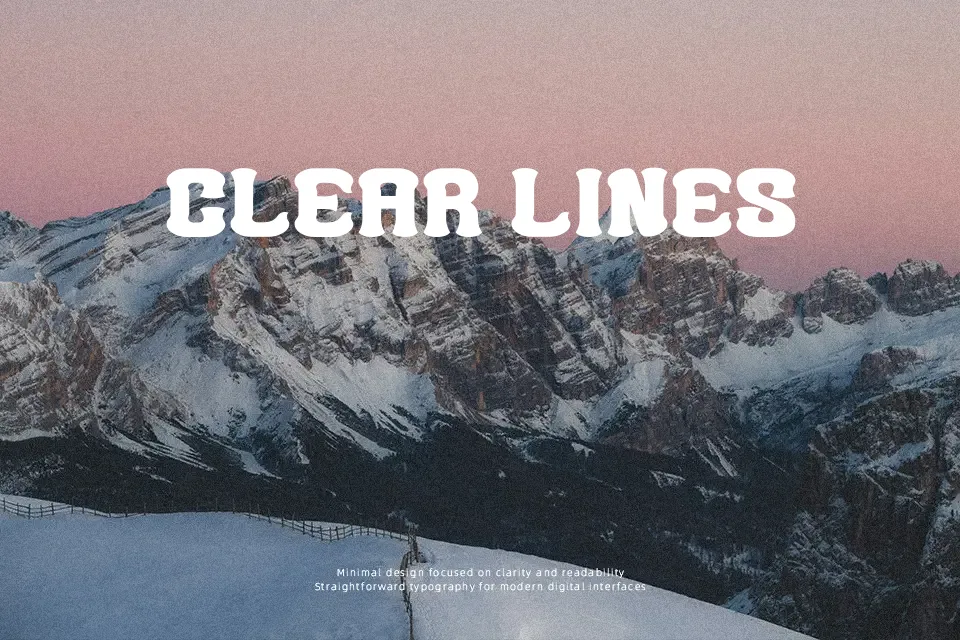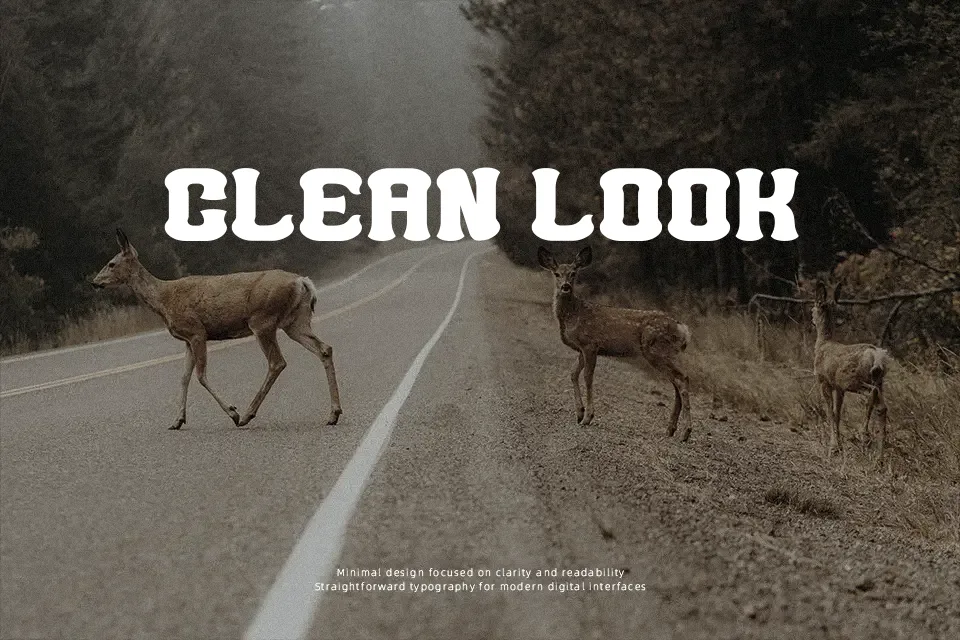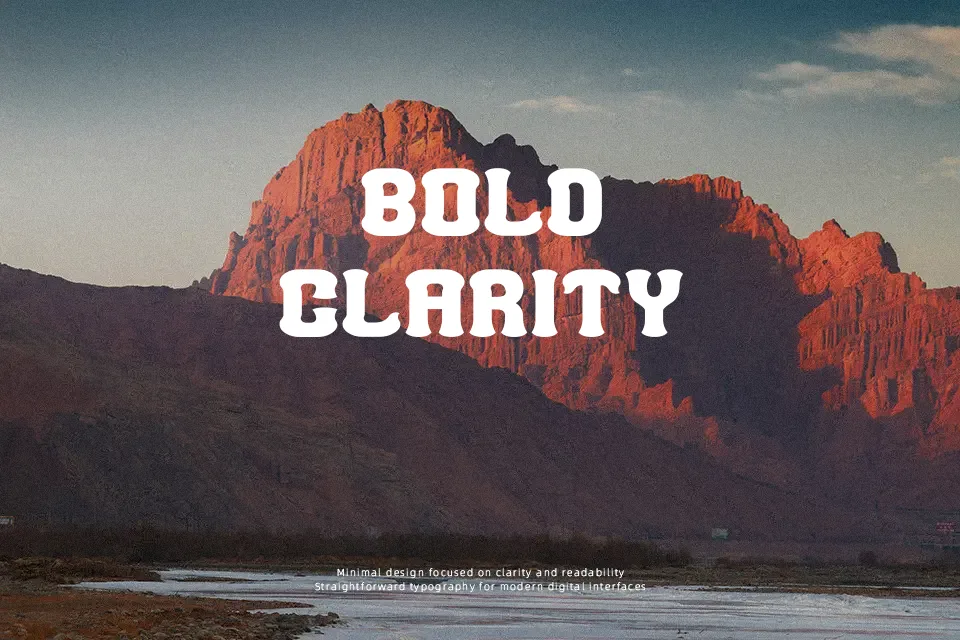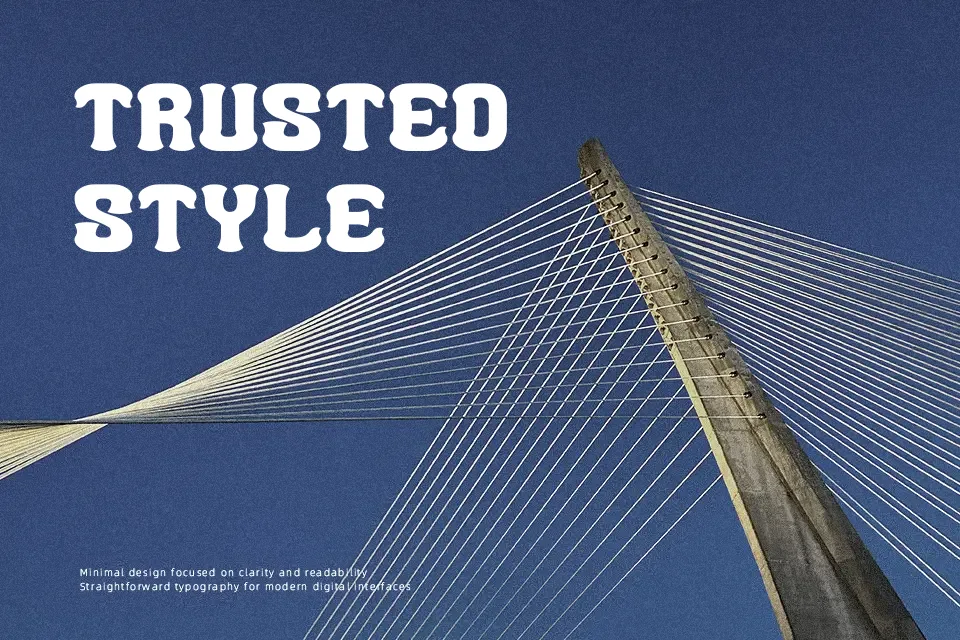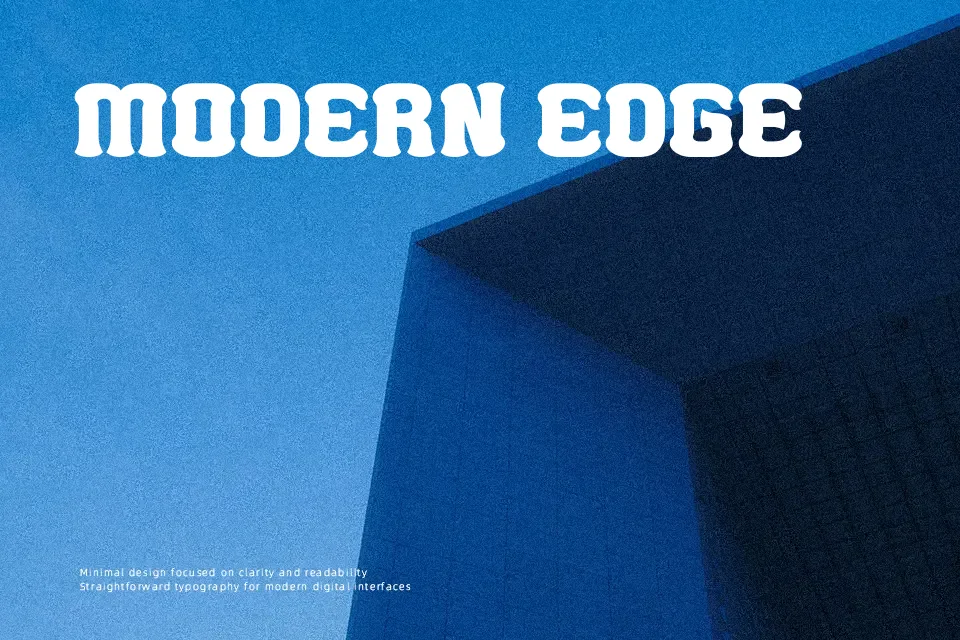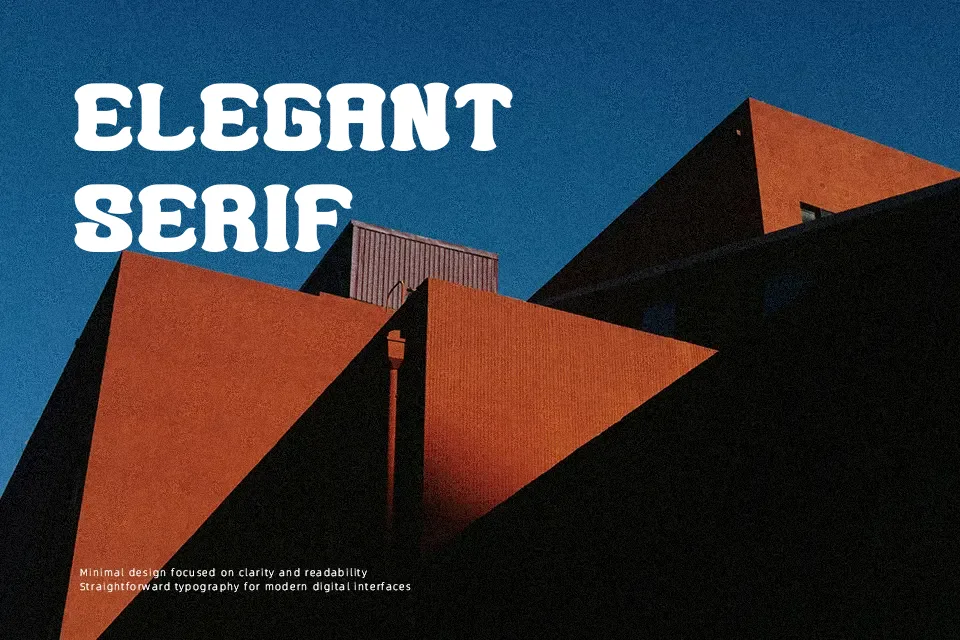
Spicy Curry Rice G Font
Spicy Curry Rice G Font offers an eye-catching aesthetic suited for lively food packaging, casual dining signs, and playful retail banners. The typeface presents heavy stroke weight with softened, rounded corners and wide horizontal proportions that give every glyph substantial presence. Generous internal spacing and clear character distinctions support effortless recognition across large headers, storefront displays, and novelty product titles. However, the pronounced structural weight and eccentric shapes make the letterforms unsuitable for extended editorial paragraphs or compact mobile interfaces, where dense typesetting hampers visual clarity. For bold presentation headers requiring informal energy, the design provides dependable graphic impact and distinct character.
Best For: restaurant menu headlines, food packaging labels, playful poster titles, children book covers
Not Ideal For: long paragraph text, dense editorial layouts, mobile interface body copy, technical documentation
Perfect for headline, kids, and packaging, with a bold and decorative style.